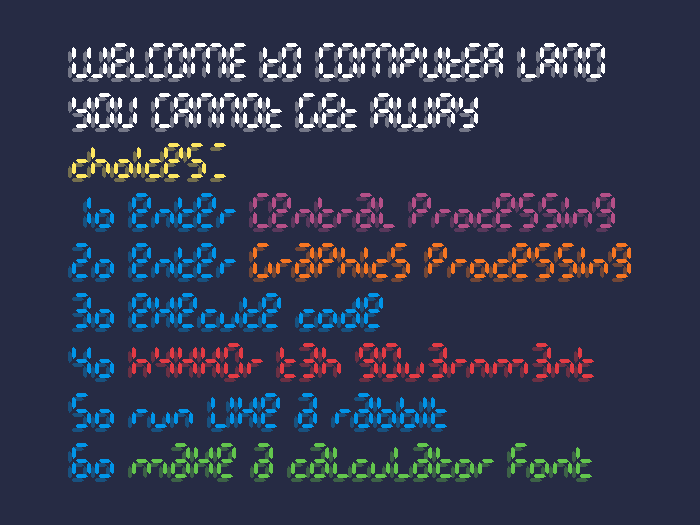
Calculatrix 7 Font
About Calculatrix 7 Font
Calculator font with a 7-segment display. This should bring many of you back to school, but in a good way, I hope! I've allowed "MWmw+" to break the grid because they were impossible to render otherwise...